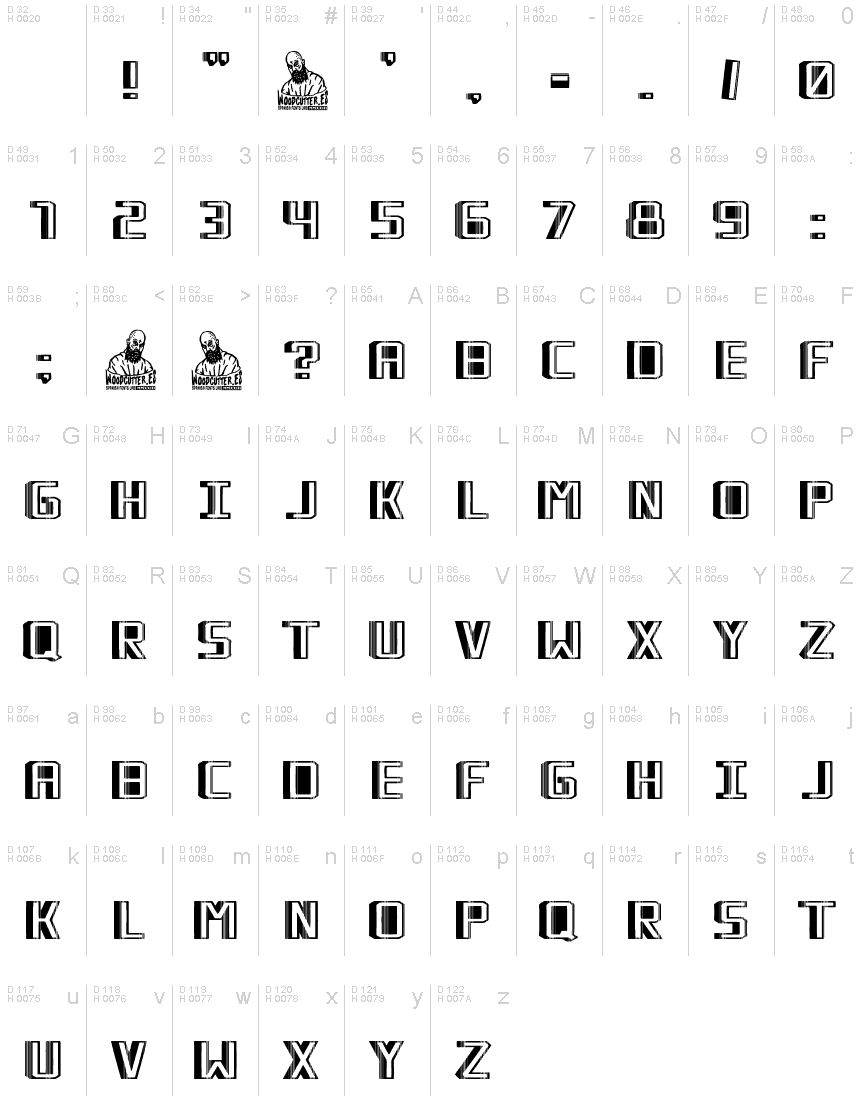
Martirio Digital
Martirio Digital, designed by Woodcutter, is a captivating display font that adds a touch of futuristic elegance to your projects.
With its unique 3d techno style, this semi-expanded font is perfect for creating eye-catching logos and titles that demand attention. Its sleek and modern design makes it ideal for branding tech startups, gaming companies, or even music festivals seeking a cutting-edge look. Elevate your designs with Martirio Digital's distinct personality and make a lasting impression on your audience.
Martirio Digital.